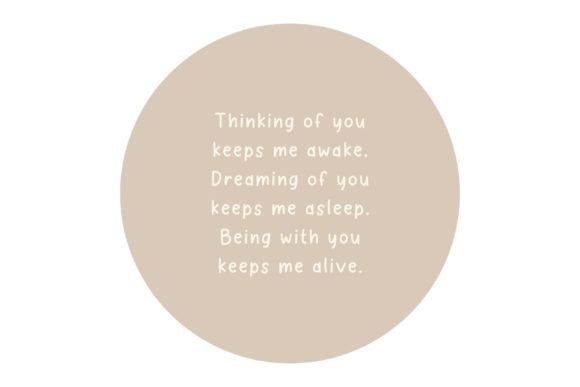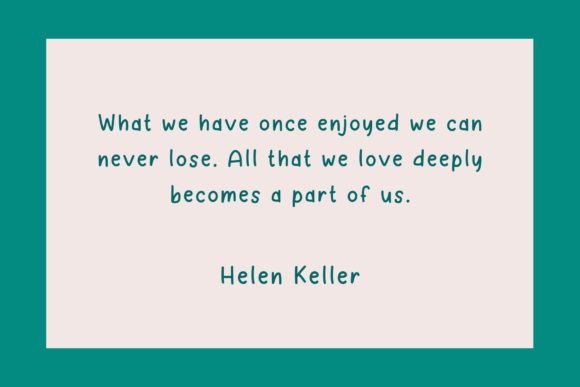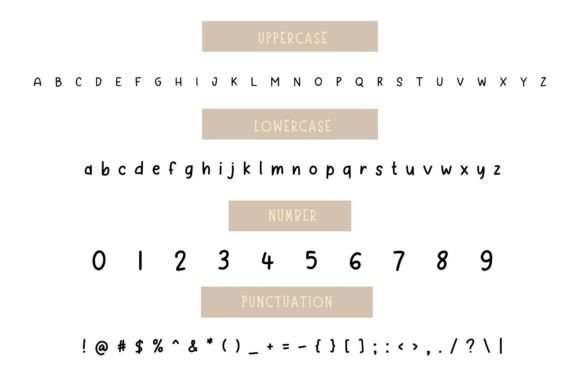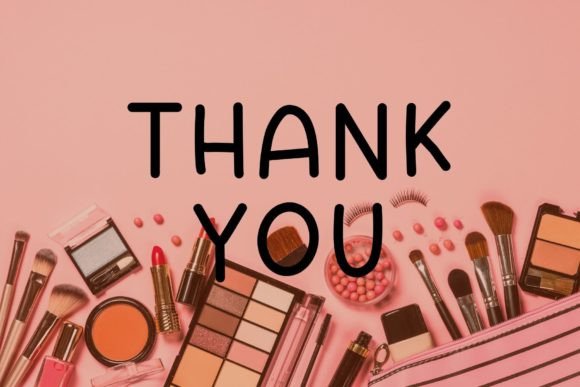
Introducing Dominic Font: The Cute Handwritten Font for Your Creative Projects
Are you looking for a font that embodies playfulness and authenticity? Look no further than Dominic Font! This adorable handwritten font is perfect for adding a personal touch to your designs, and its versatility makes it suitable for a wide range of projects.
What Makes Dominic Font Special?
Dominic Font is a unique and charming font that stands out from the crowd. Its handwritten style gives it a warm and friendly feel, making it perfect for designs that require a personal touch. Whether you’re creating a blog post, logo, branding materials, ads, invitations, greeting cards, planners, photo albums, or decorations, Dominic Font is the perfect choice.
Endless Design Possibilities with Dominic Font
One of the best things about Dominic Font is its versatility. It can be used in a variety of design projects, including:
• Blog Posts: Add a personal touch to your blog posts with Dominic Font. Its playful and authentic style will make your content stand out and engage your readers.
• Logos and Branding: Create a unique and memorable logo for your brand with Dominic Font. Its handwritten style will give your brand a friendly and approachable feel.
• Ads: Make your ads more eye-catching and engaging with Dominic Font. Its playful style will grab the attention of your audience and leave a lasting impression.
• Invitations and Greeting Cards: Add a personal touch to your invitations and greeting cards with Dominic Font. Its charming style will make your cards special and memorable.
• Planners and Photo Albums: Create beautiful and functional planners and photo albums with Dominic Font. Its handwritten style will add a personal touch to your designs.
• Decorations: Use Dominic Font to create beautiful decorations for your home or office. Its playful style will add a touch of personality to your space.
Why Choose Dominic Font?
There are many reasons why you should choose Dominic Font for your design projects. Here are a few:
• Playful and Authentic: Dominic Font embodies playfulness and authenticity, making it perfect for designs that require a personal touch.
• Versatile: Dominic Font can be used in a wide range of design projects, from blog posts to logos and branding materials.
• Easy to Read: Dominic Font is easy to read, making it perfect for body text and headings.
• Unique: Dominic Font is a unique and charming font that will make your designs stand out from the crowd.
How to Use Dominic Font in Your Designs
Using Dominic Font in your designs is easy. Here are a few tips:
• Pair it with Other Fonts: Pair Dominic Font with other fonts to create a unique and interesting design.
• Experiment with Colors: Experiment with different colors to find the perfect combination for your design.
• Use it for Headings and Body Text: Use Dominic Font for both headings and body text to create a cohesive design.
Dominic Font is a cute handwritten font that embodies playfulness and authenticity. Its versatility makes it perfect for a wide range of design projects, from blog posts to logos and branding materials. With its unique and charming style, Dominic Font is sure to make your designs stand out from the crowd. So why wait? Add Dominic Font to your designs today and enjoy the results!